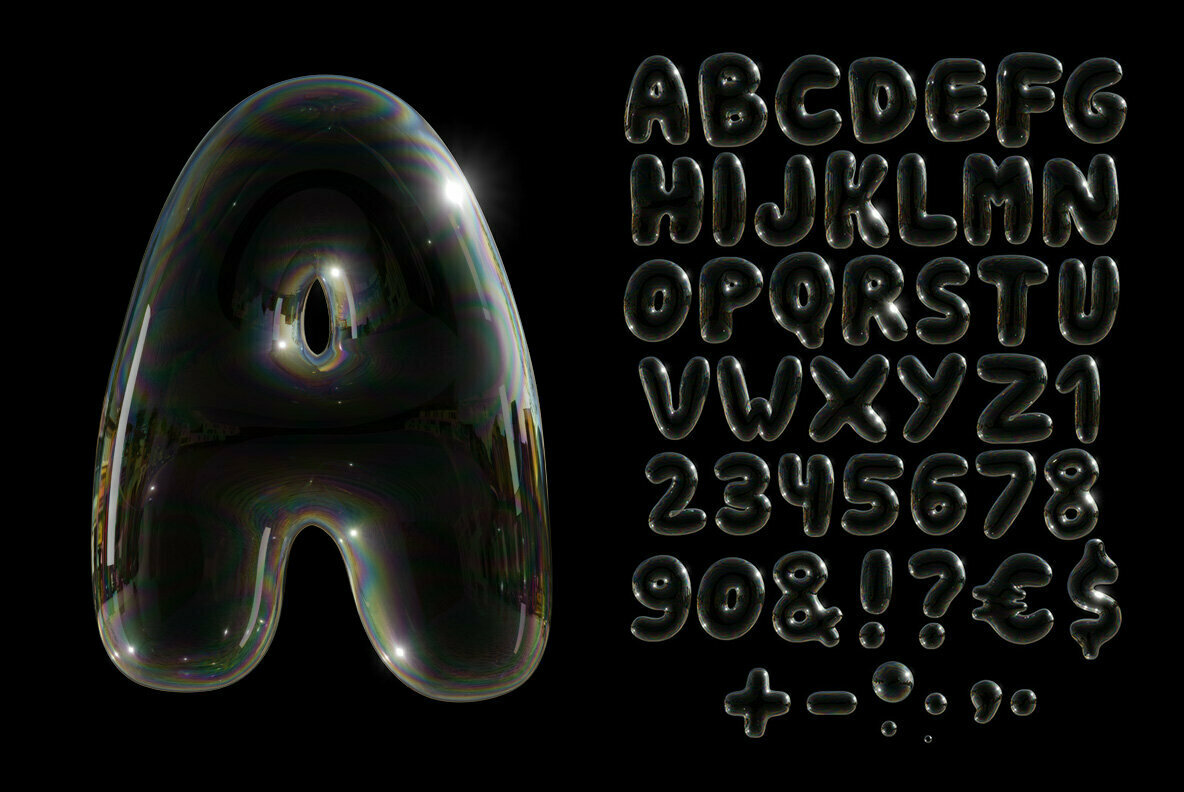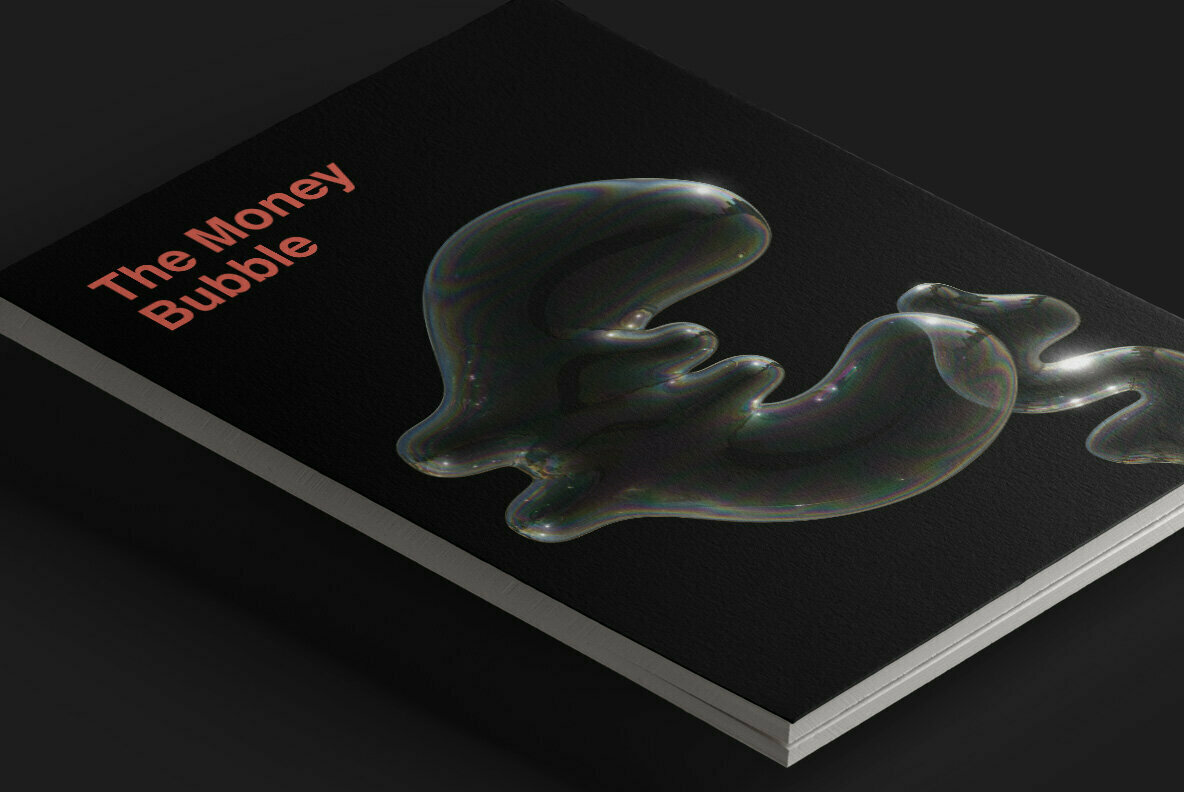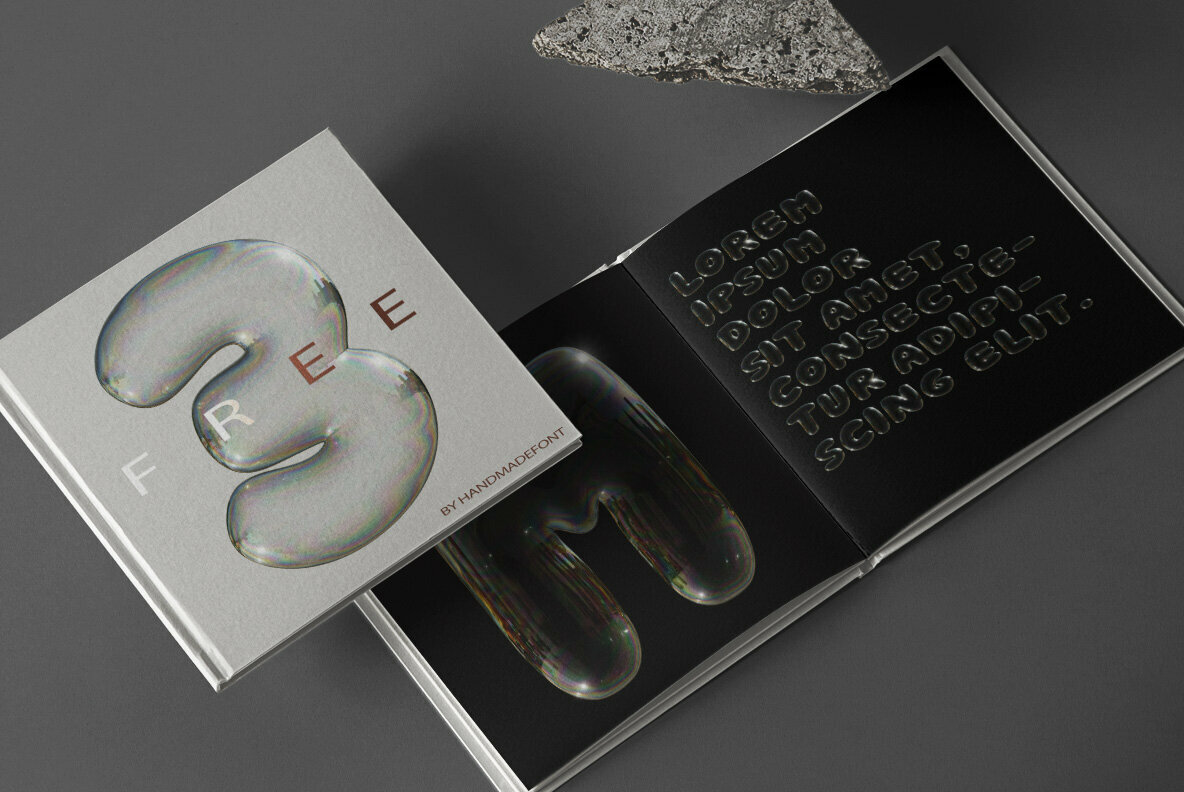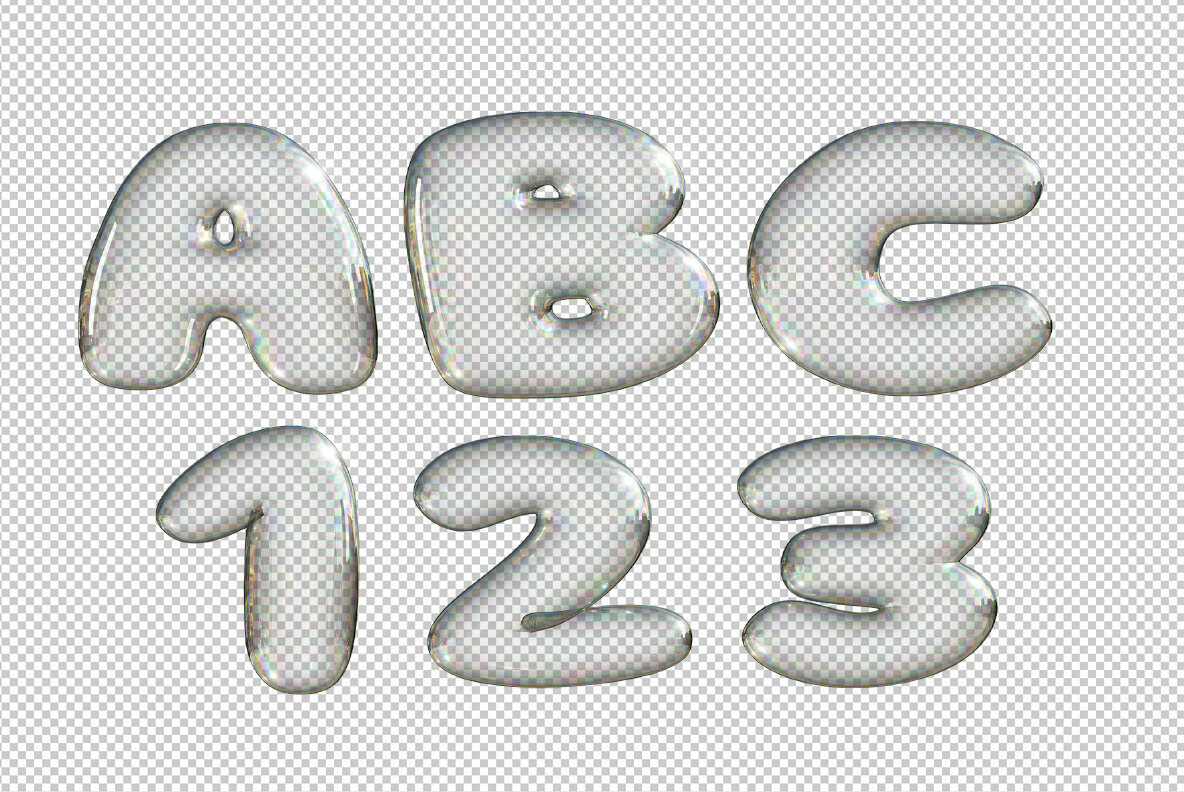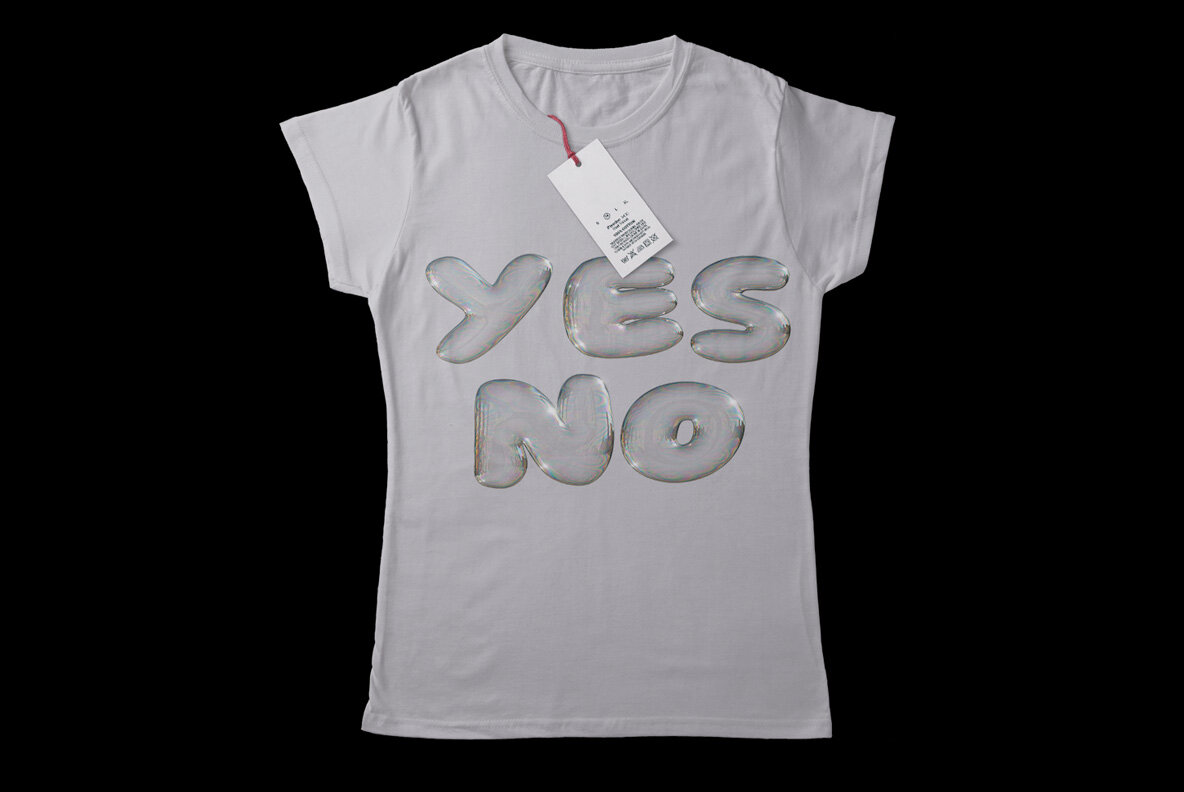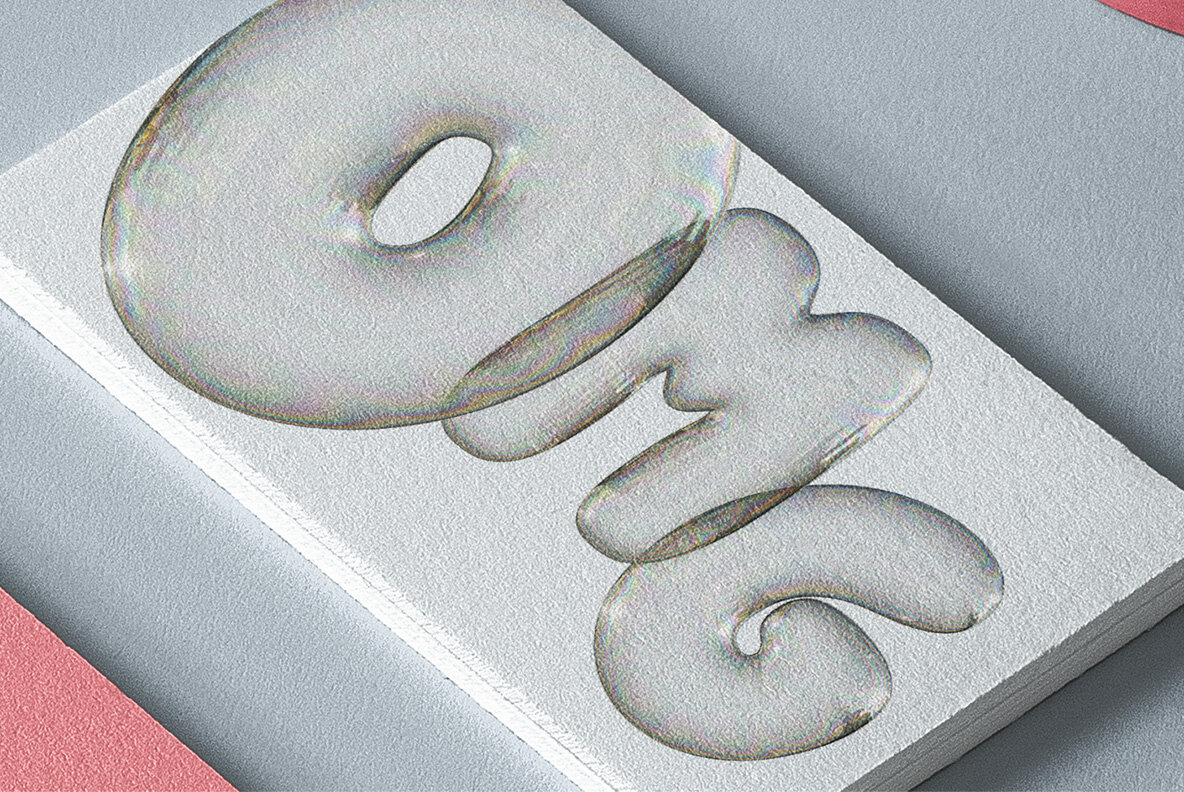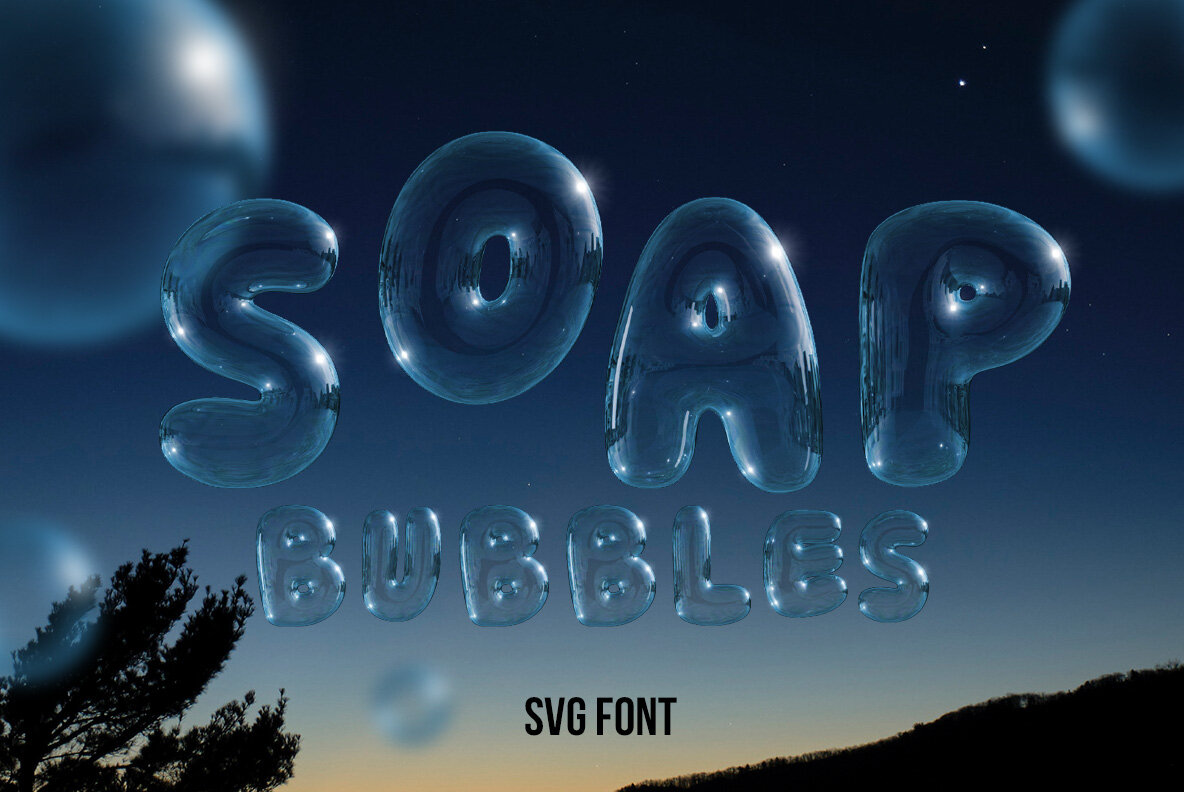
Soap Bubbles Font made by hand in 3D will work great for housewives design or wash care typography. Although, we are not huge fans of soap operas, probably Soap Bubbles SVG font will work great to illustrate posters for dramatic TV series. Buy this unique 3D font by Handmadefont to design an invitation to your VIP cinema party in a swimming pool.
Soap Bubbles SVG Font. A high definition OpenType-SVG font built-in 3D.
Others : ! ? $ € & % + - .